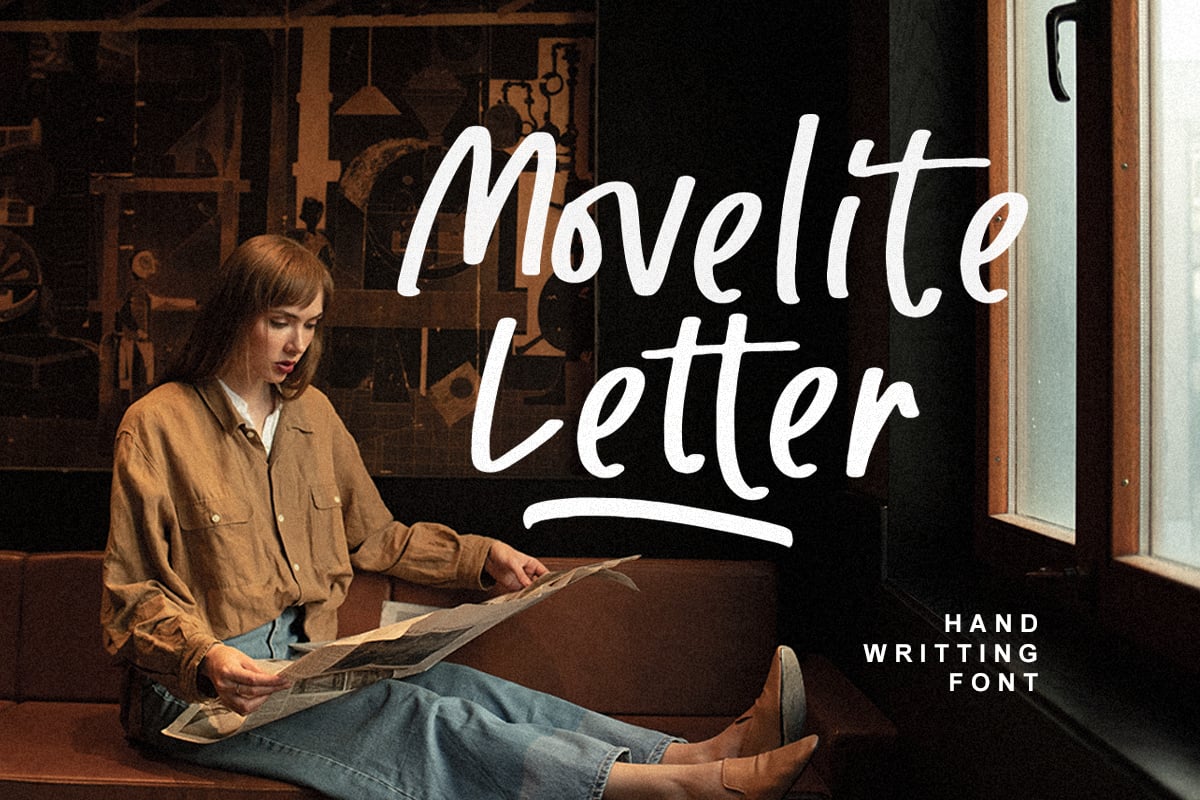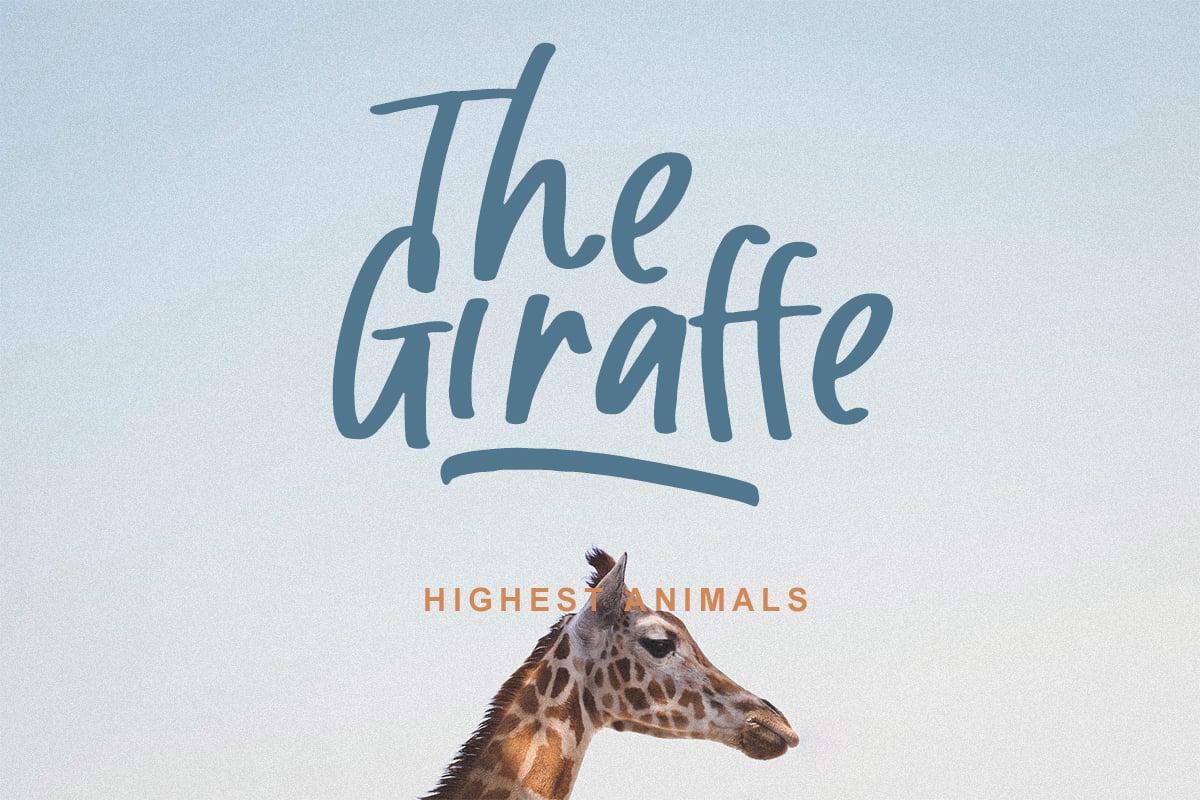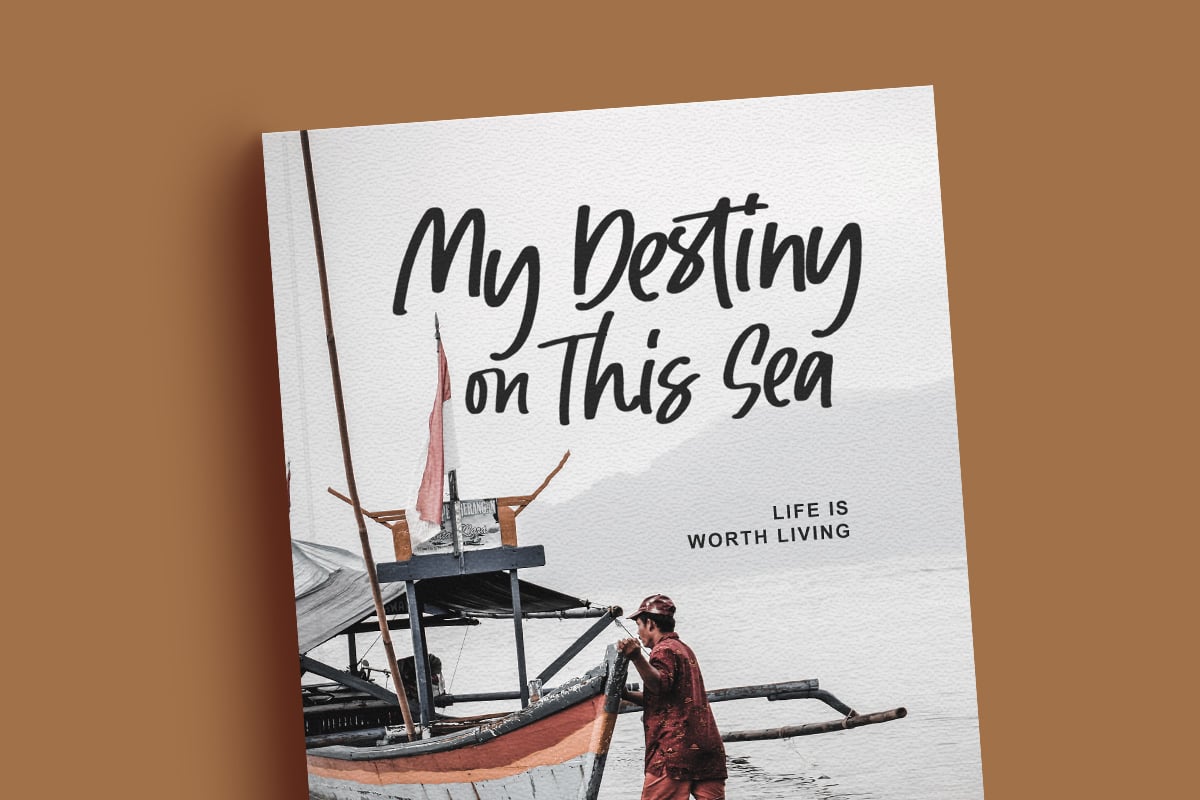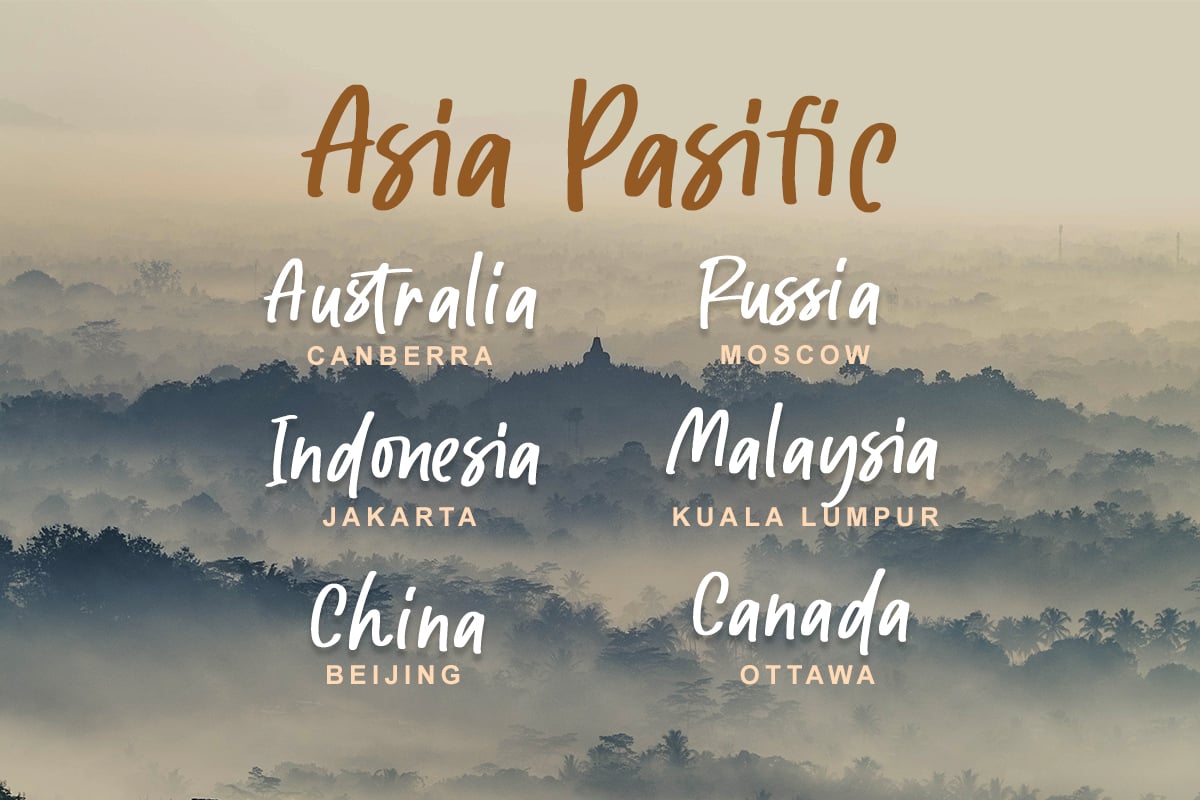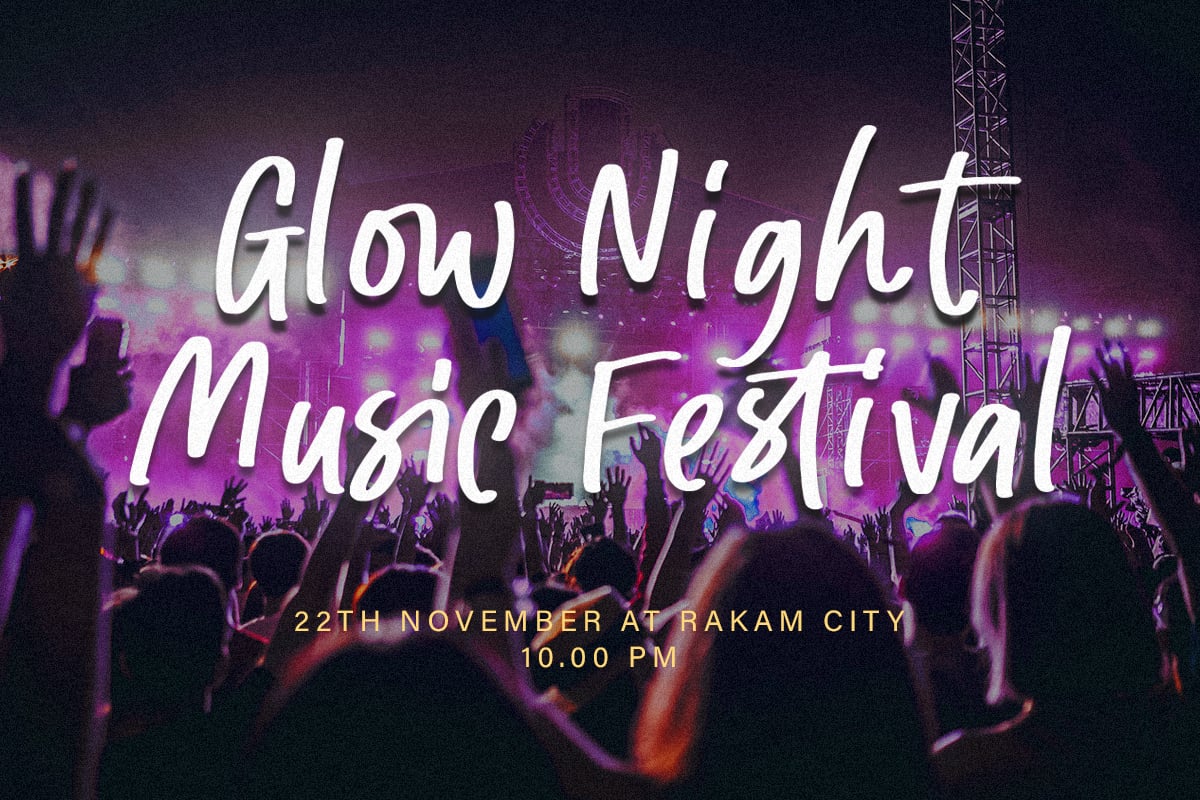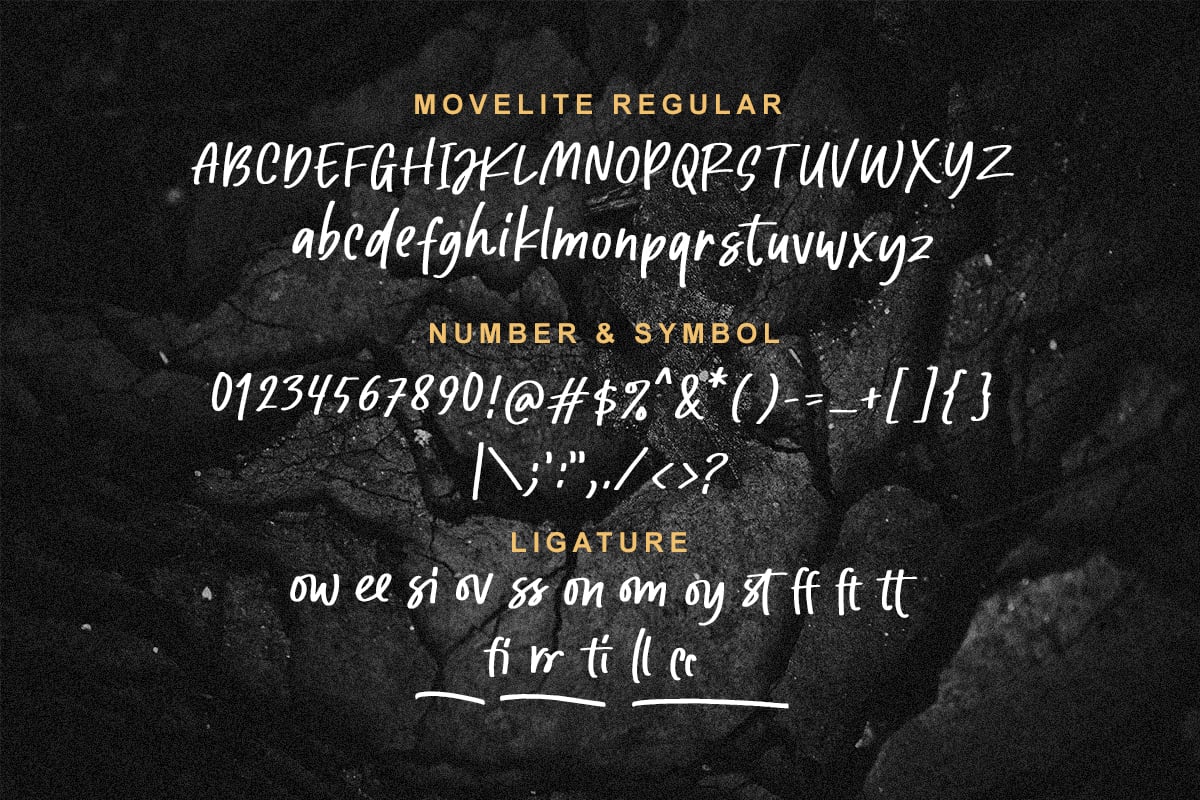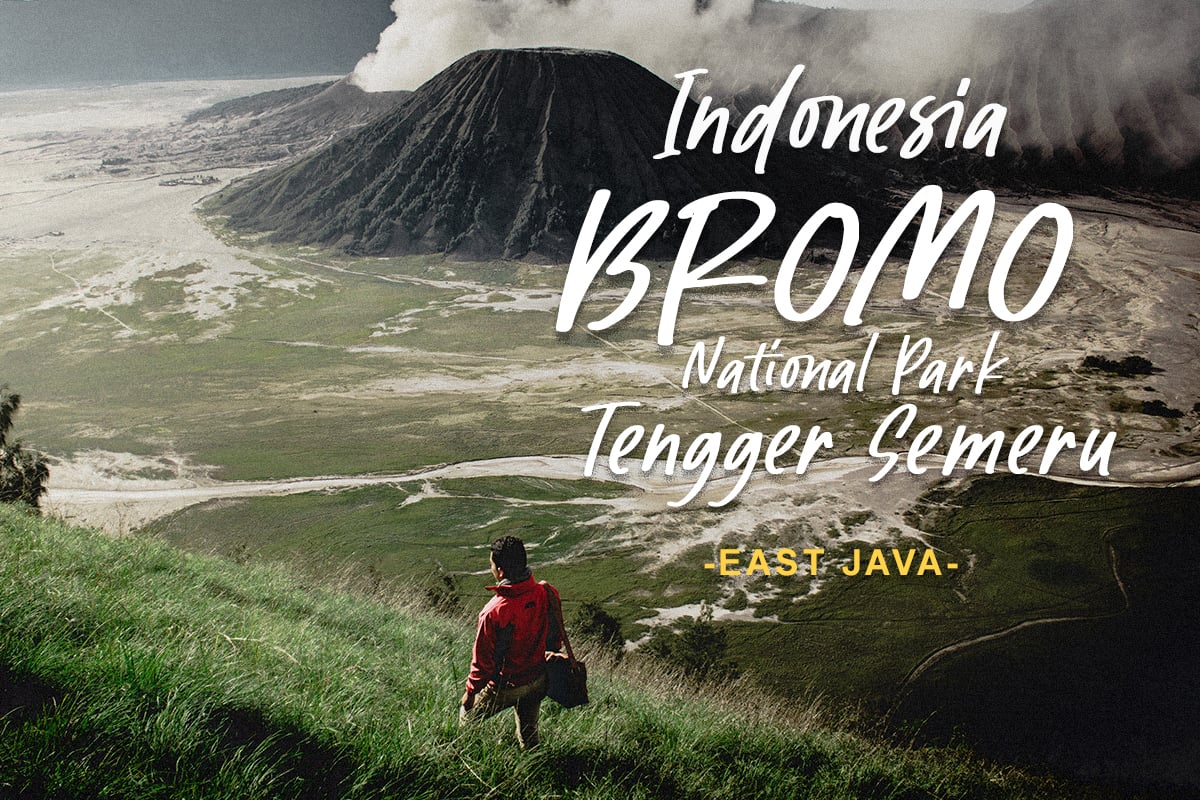
Movelite – Bold Handwriting Font
Presenting Movelite! A smooth bold Font with many ligatures. This font was made for the perfect combining of unique but simply character. You can use this font for various project, such as for advertisement, cover of book or magazine, logo, quotes, poster design, personal branding, promotional materials, logotype, product packaging, etc. Movelite also support Multi Language!